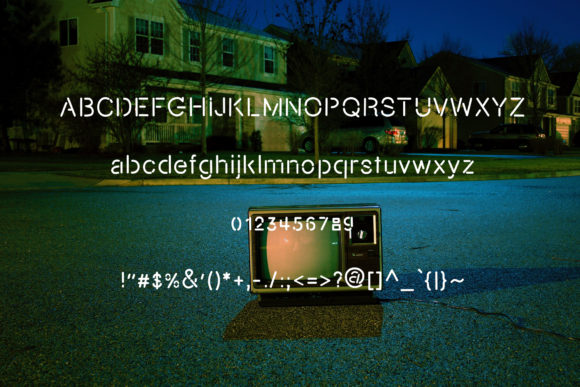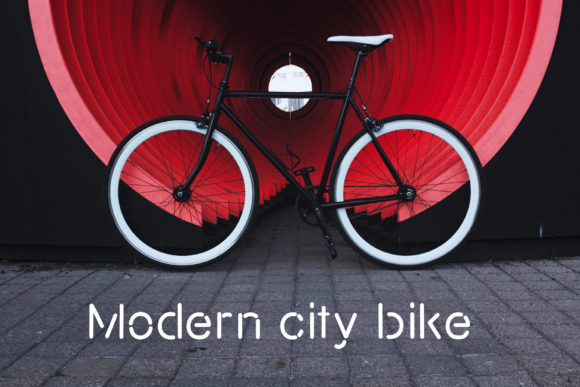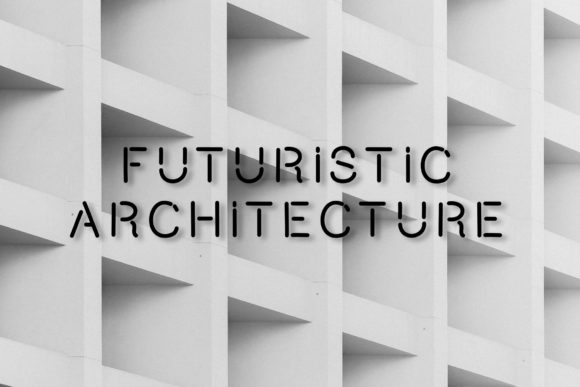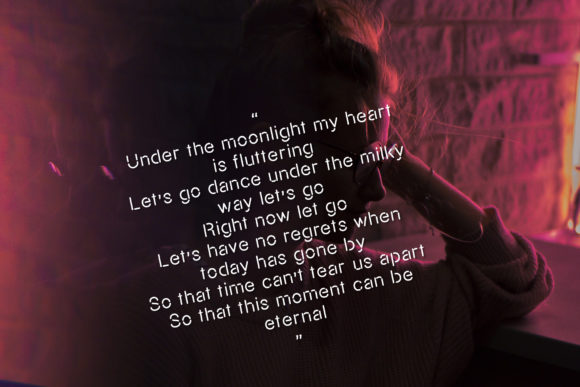
The Quest for the Perfect Font: How Forever Young Stole the Show
I still remember the frustration of working on a project, hours spent crafting the perfect design, only to have it fall flat because of one crucial element: the font. It was as if I was searching for a needle in a haystack, scrolling through page after page of fonts, none of which seemed quite right. Then, a client requested a font that was “simple, yet eclectic” – a challenge, to say the least. That’s when I stumbled upon Forever Young, a simple and neat lettered display font that has since become a staple in my design toolkit.
A Designer’s Dream: What I Love About Forever Young
Forever Young is more than just a font – it’s a design statement. Here are a few things that make it stand out:
- ✨ Abstract shapes: Forever Young celebrates abstract shapes in all their eclectic brilliance, making it perfect for designers looking to add a unique touch to their work.
- ✅ Simple and neat: The font’s clean lines and simple design make it easy to read and versatile enough to use in a variety of contexts.
- 💡 Creative freedom: With its wide range of glyphs and stylistic alternates, Forever Young gives designers the freedom to experiment and push the boundaries of their creativity.
The Not-So-Perfect Font: A Few Quirks to Consider
While Forever Young is an excellent font, it’s not without its limitations:
- 🤔 Limited use cases for body text: Due to its display nature, Forever Young might not be the best choice for long blocks of body text. It’s perfect for headings, titles, and short phrases, but may not be as readable in smaller sizes.
- ⚠️ Some characters may require manual kerning: As with any font, some characters may require manual kerning to achieve optimal results. This can be a minor inconvenience, but it’s worth noting.
The Story Behind Forever Young: Designer Inspiration
While the actual designer behind Forever Young remains a mystery, it’s easy to imagine the creative process that led to its creation. Perhaps the designer was inspired by the abstract shapes and eclectic styles of the art world, seeking to distill these elements into a simple, yet bold font. Whatever the inspiration, Forever Young has undoubtedly become a beloved tool for designers seeking to add a unique touch to their work.
| Font Name | Forever Young Font |
| Author | Nuchylee |
| Is Forever Young suitable for body text? | No, Forever Young is a display font best used for headings, titles, and short phrases. |
| Does Forever Young support OpenType features? | Yes, Forever Young offers a range of OpenType features, glyphs, and stylistic alternates to enhance your designs. |